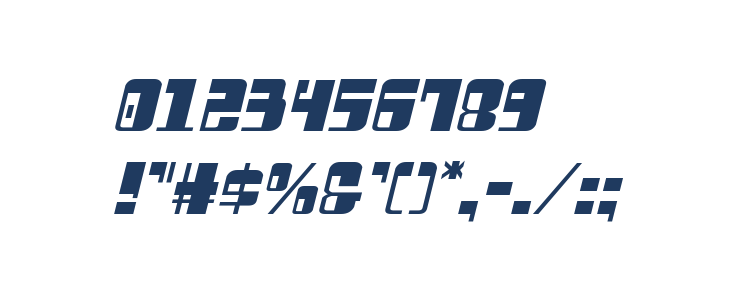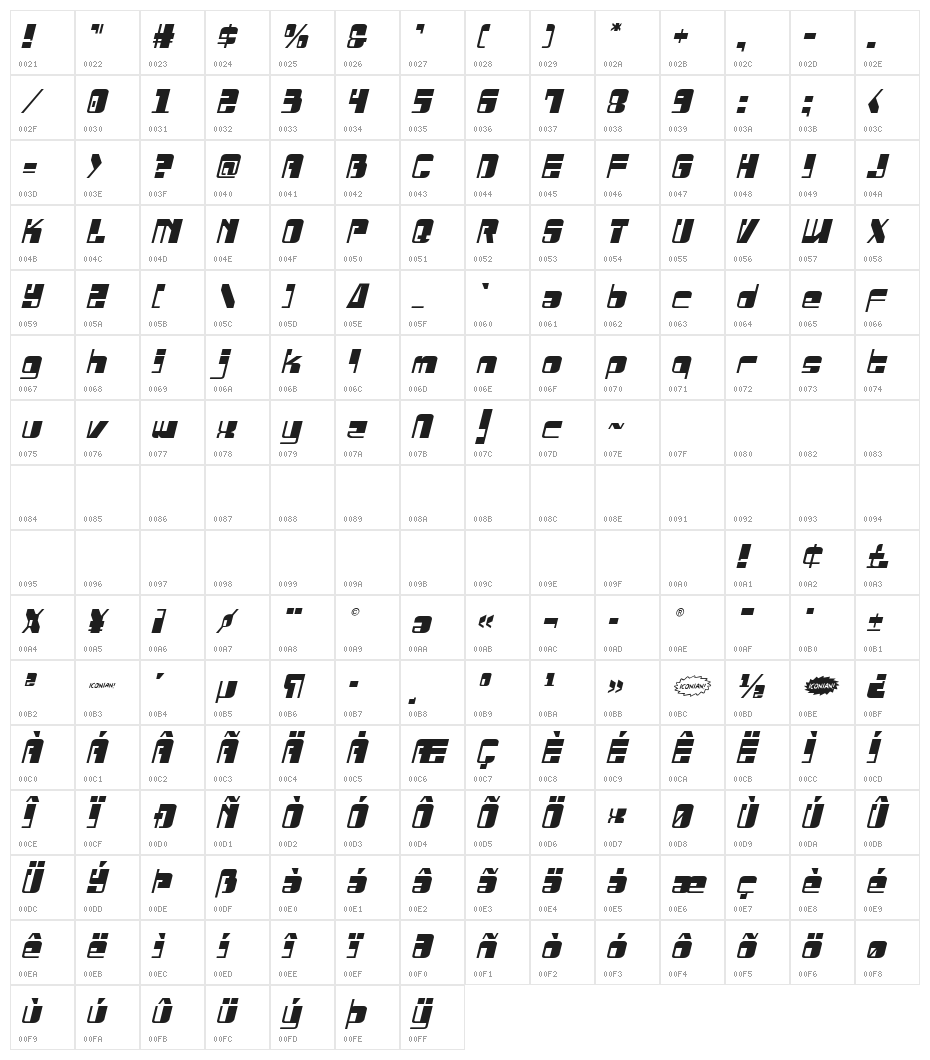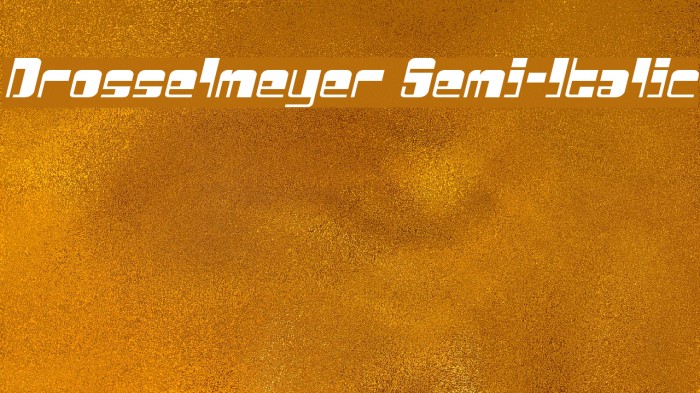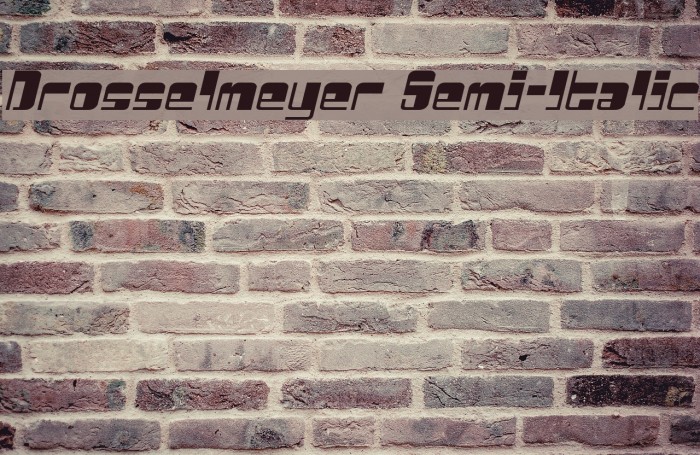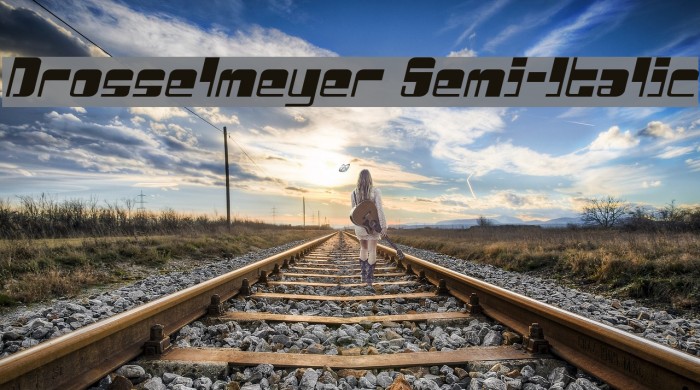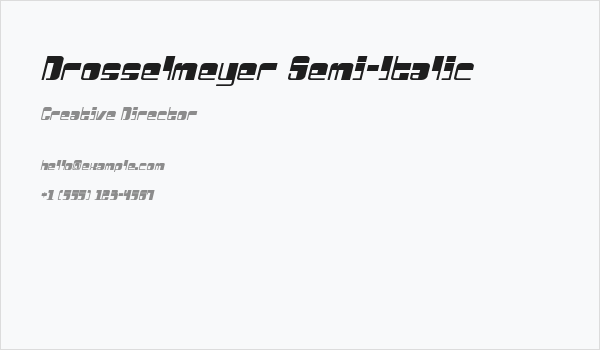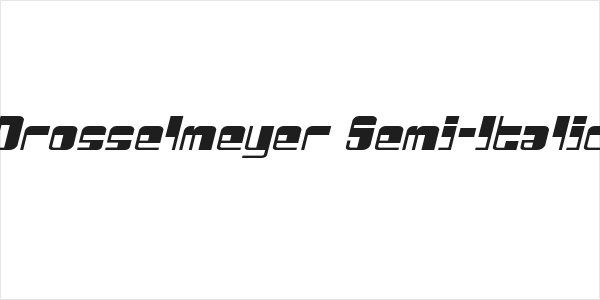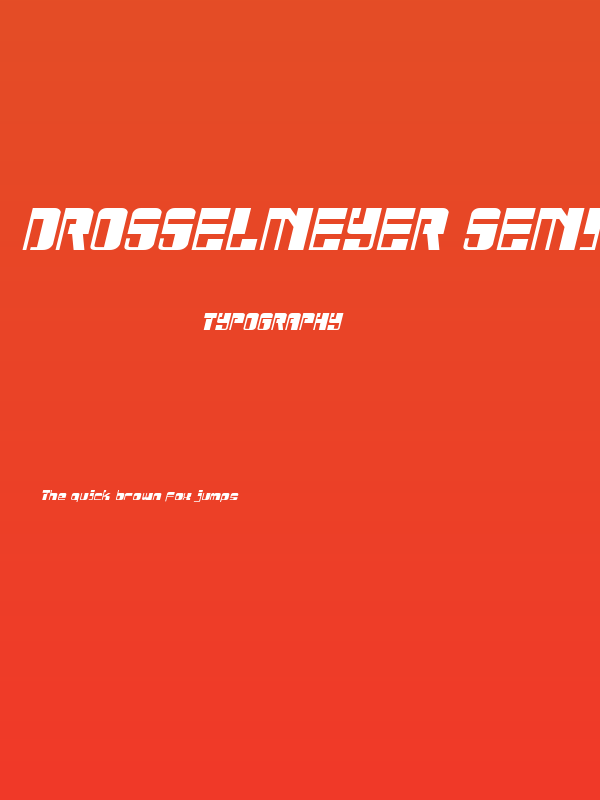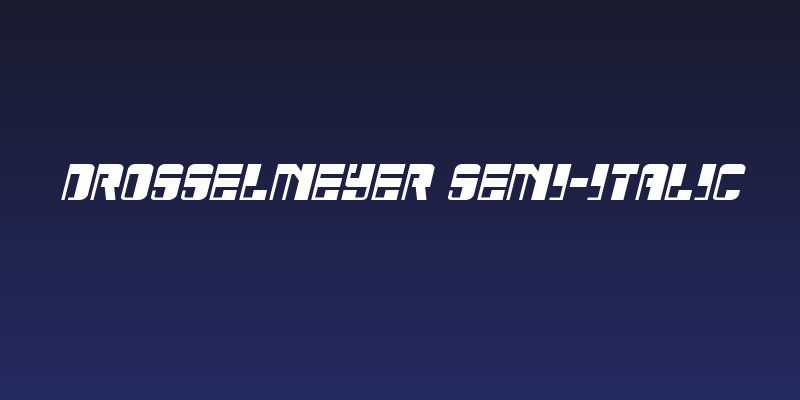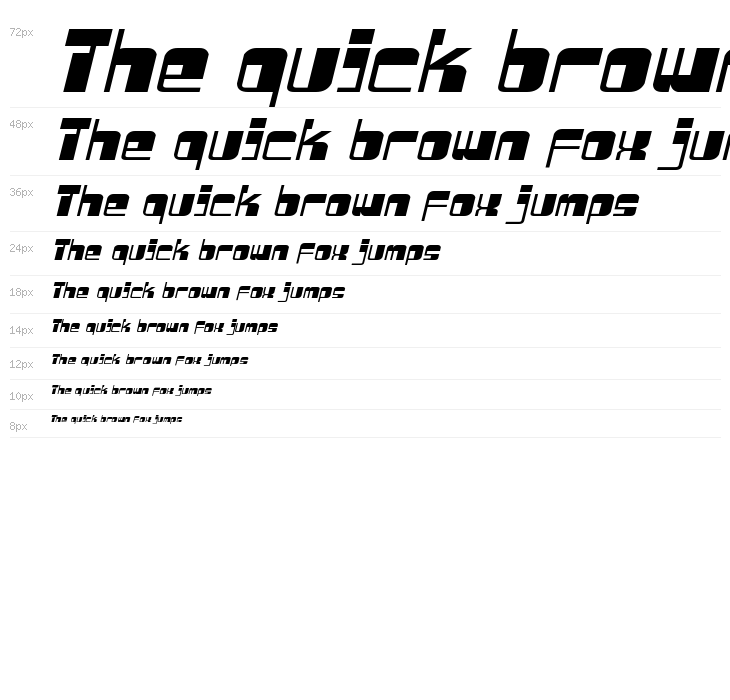
Drosselmeyer Semi-Italic Font
Drosselmeyer Semi-Italic Description
This font features a dynamic and futuristic design, characterized by its sharp angles and geometric forms. The letters are slightly italicized, giving a sense of motion and speed. The uppercase and lowercase characters maintain a consistent style, with a bold and assertive presence. Numbers and special characters are designed to match the overall aesthetic, ensuring uniformity across all text elements. The font's unique style makes it stand out, with a modern and edgy appearance that is both eye-catching and memorable.